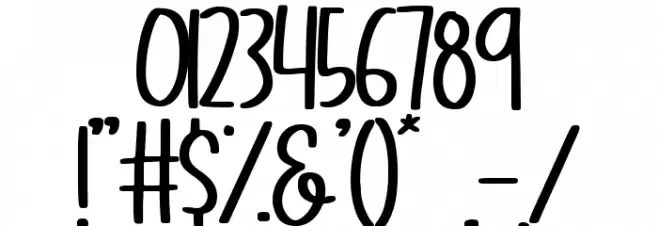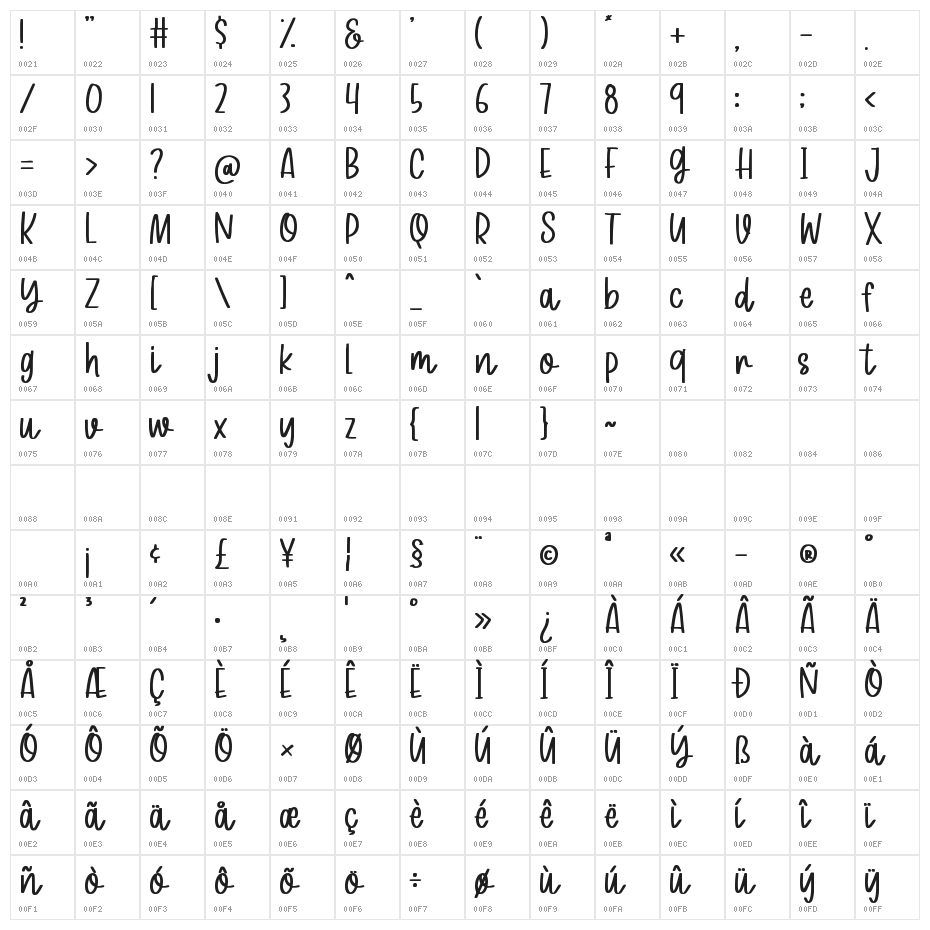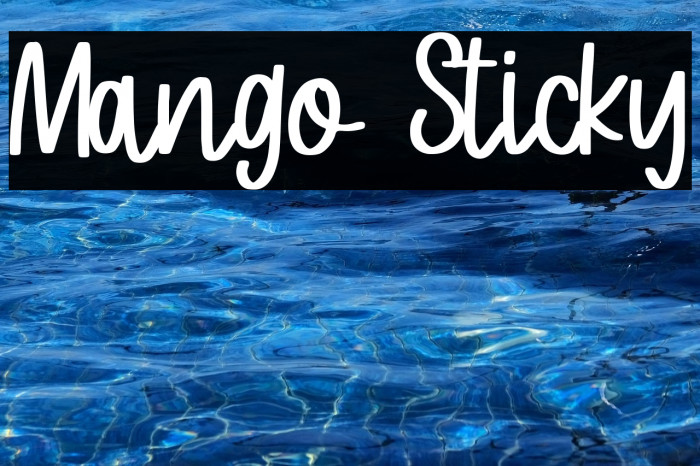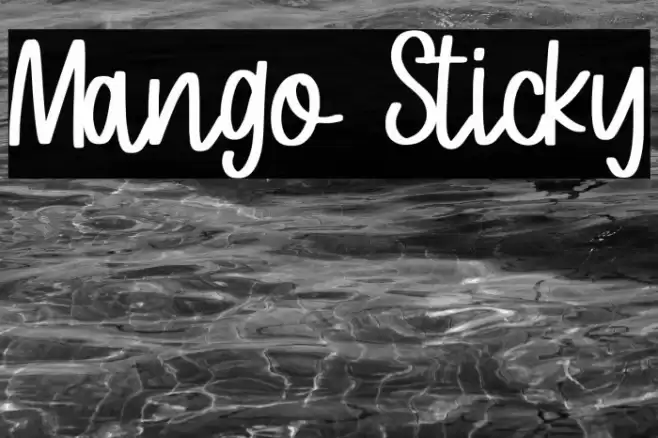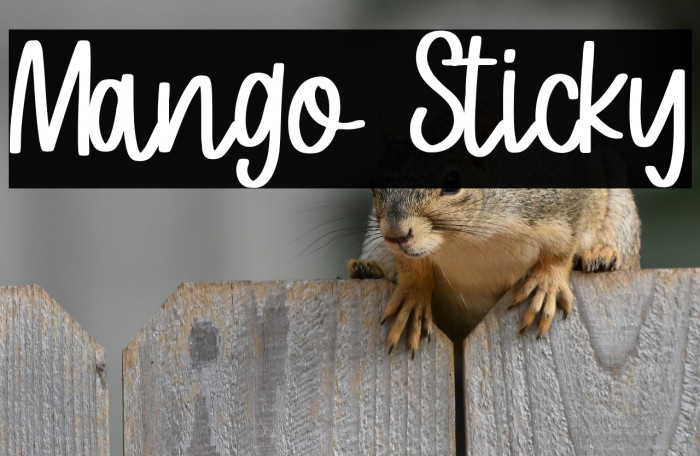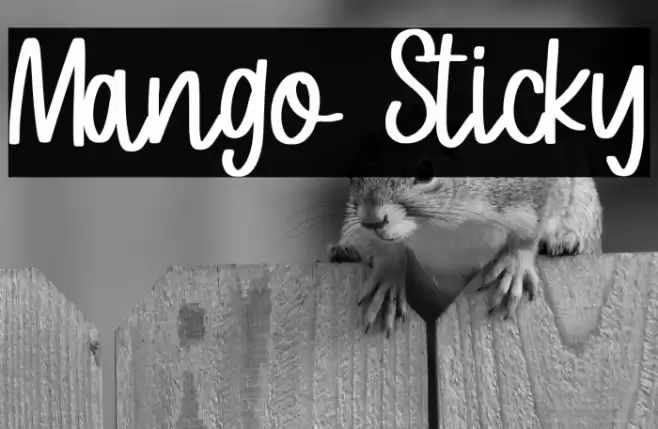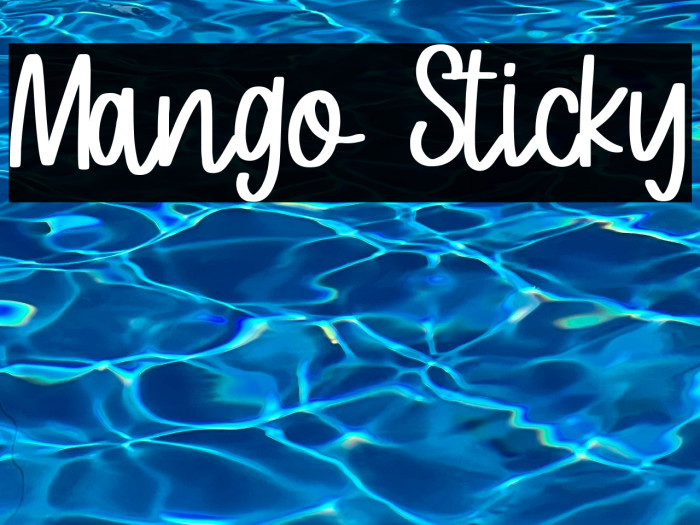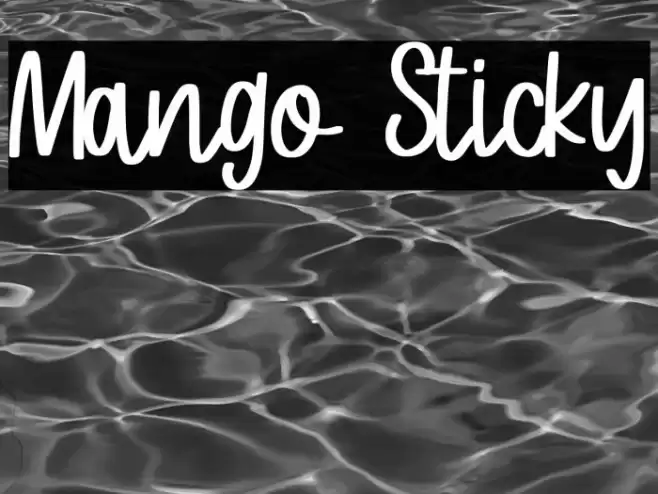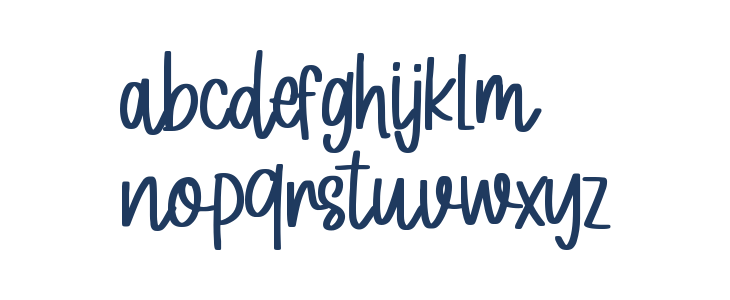
Mango Sticky Font
Mango Sticky Description
This playful and energetic font features a handwritten style with a casual, friendly appearance. The letters are slightly slanted, giving a dynamic and lively feel. The strokes are consistent in width, providing a uniform look across all characters. The uppercase letters are bold and prominent, while the lowercase letters maintain a smooth flow, enhancing readability. The numbers and special characters are designed to match the overall style, ensuring a cohesive look. This font is ideal for projects that require a personal touch or a fun, informal vibe.
Overall StyleCasual
Use CaseHeadlines, Logos, Informal Text
Proposed ProjectsIdeal for greeting cards, invitations, social media graphics, and children's books.